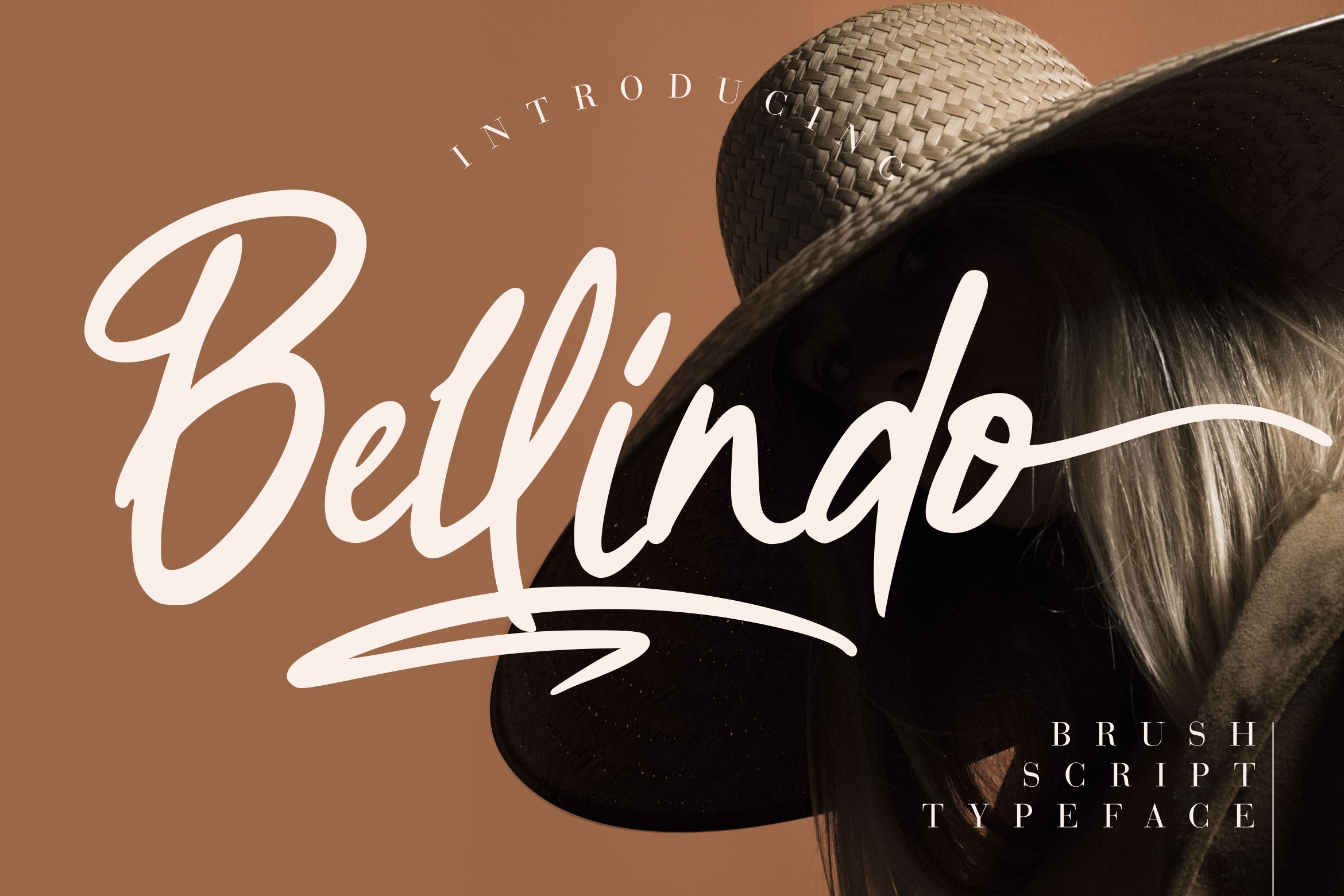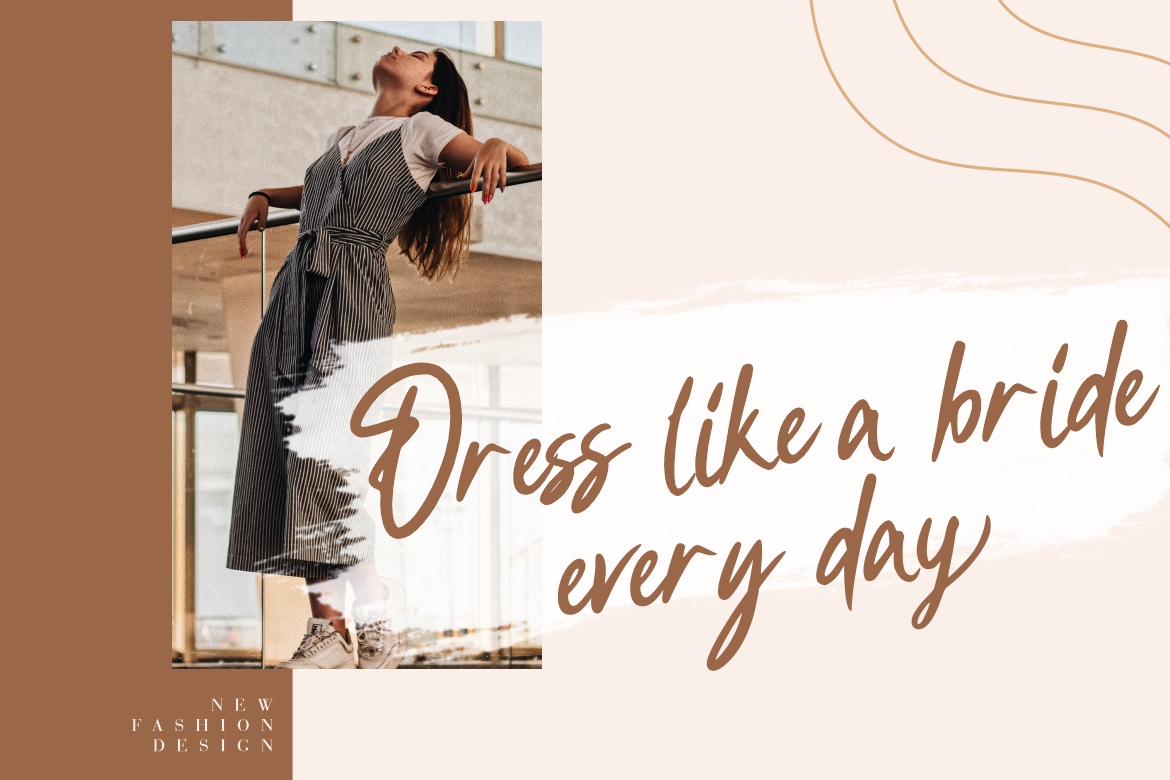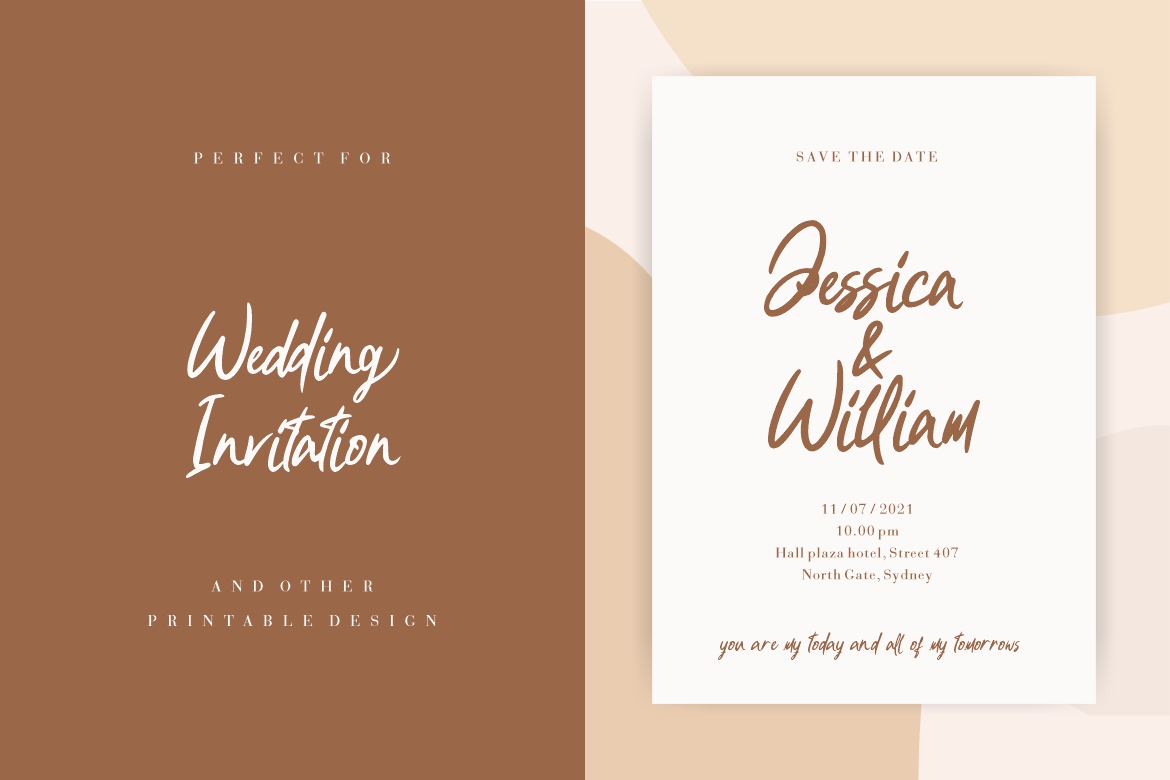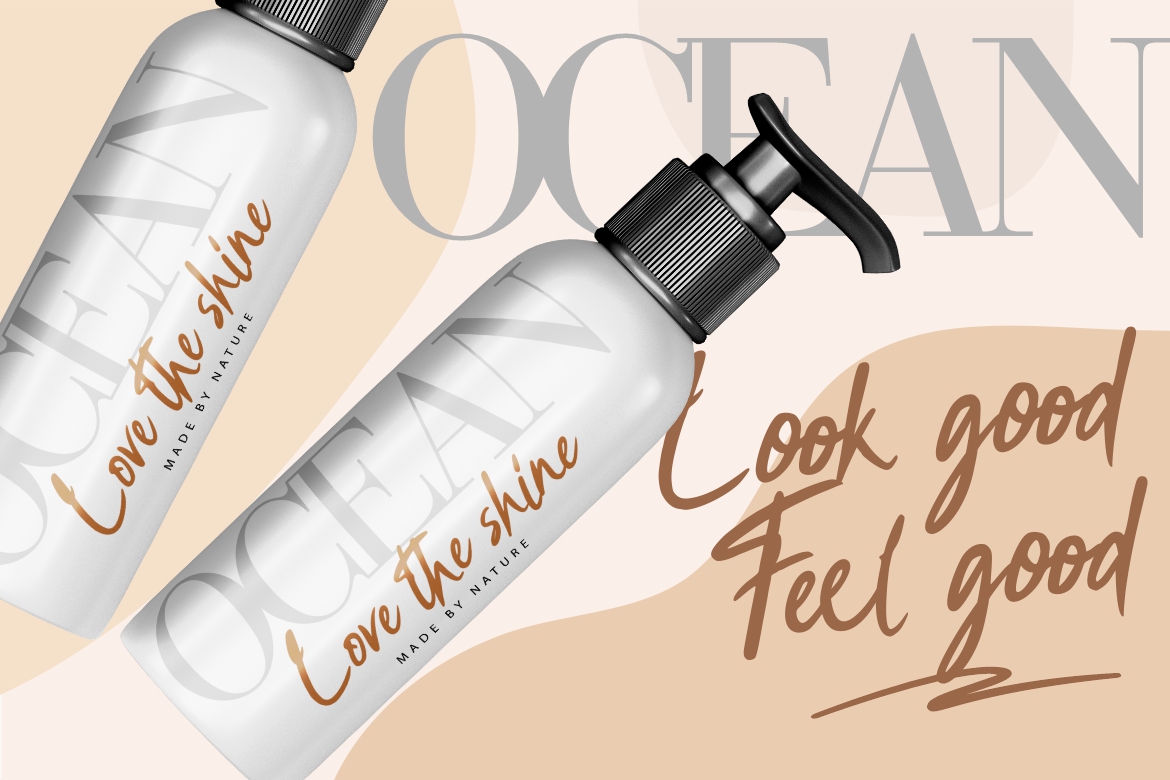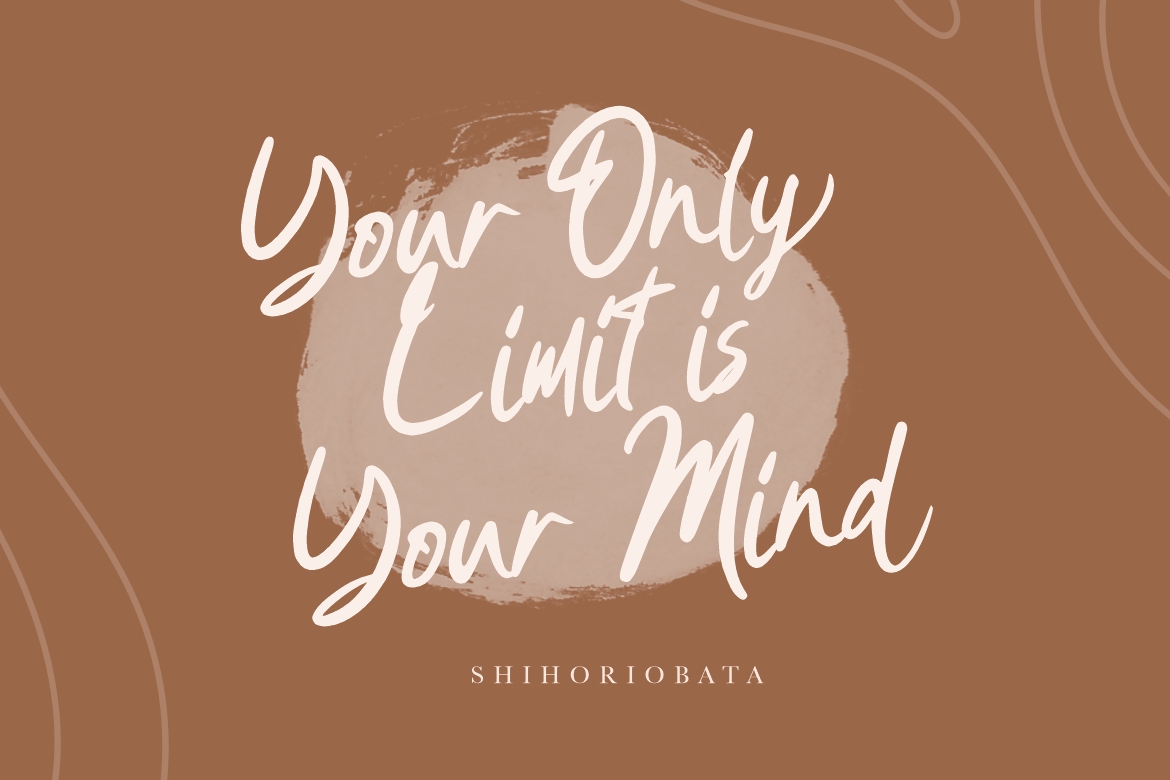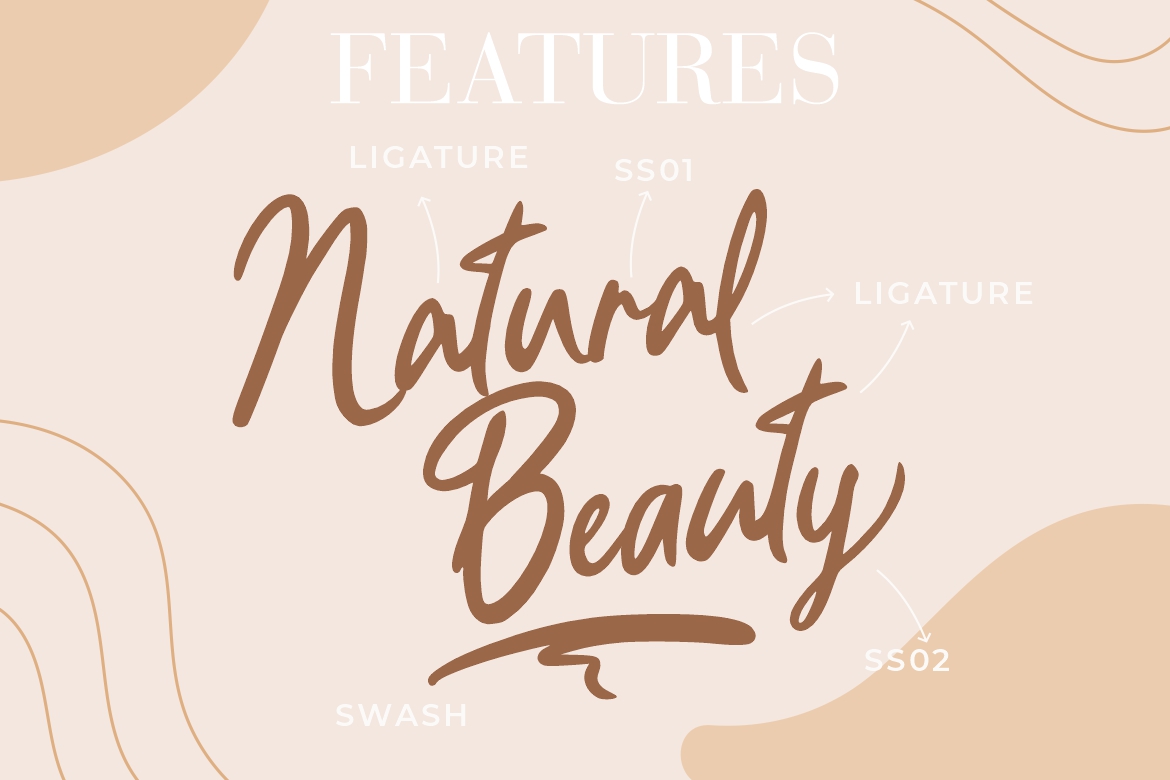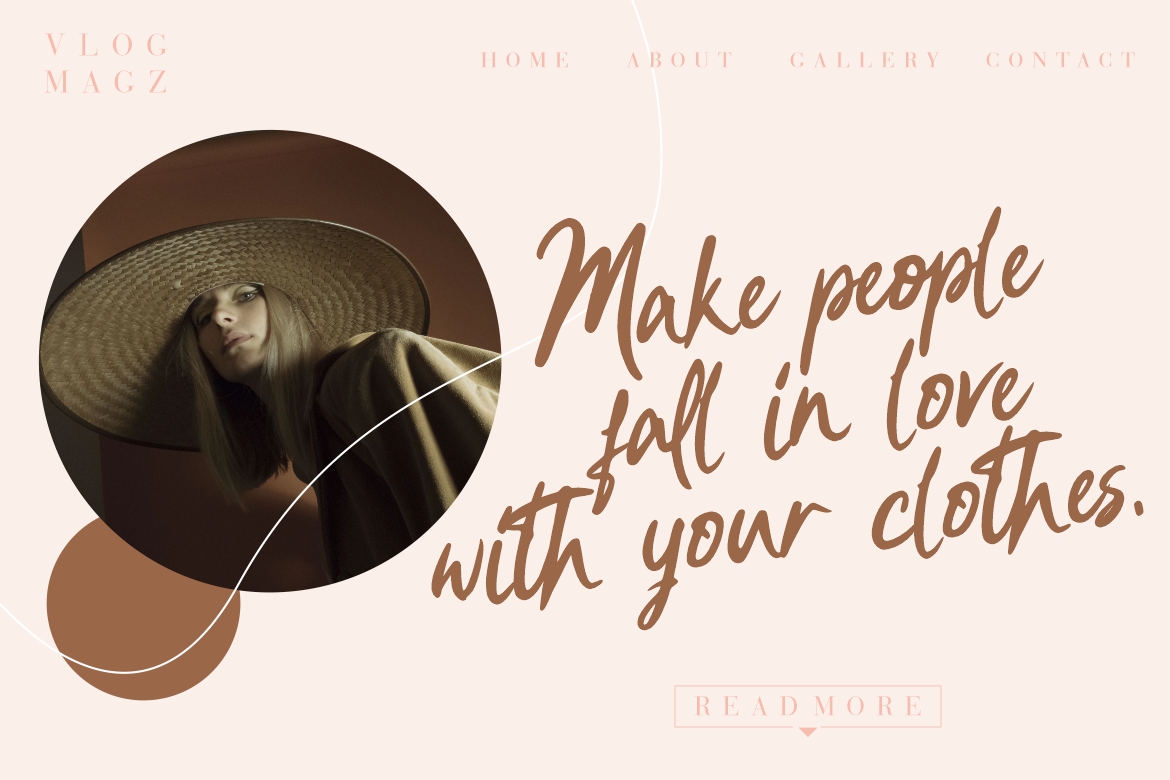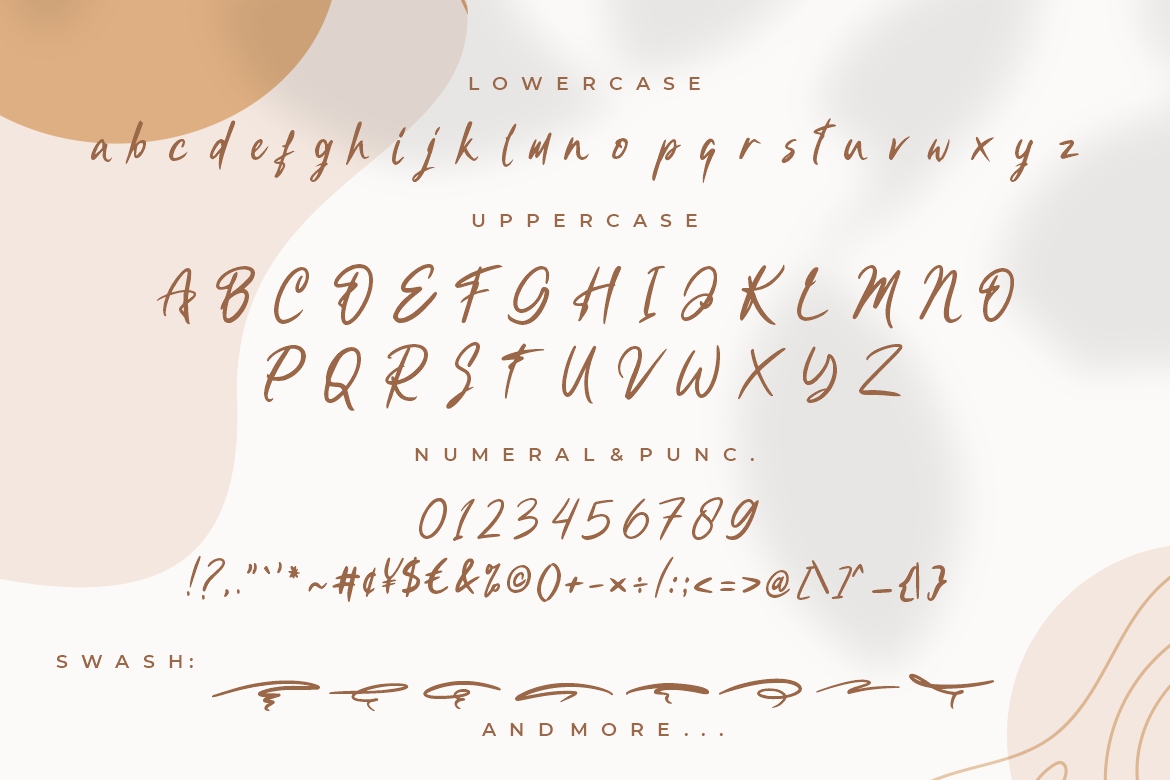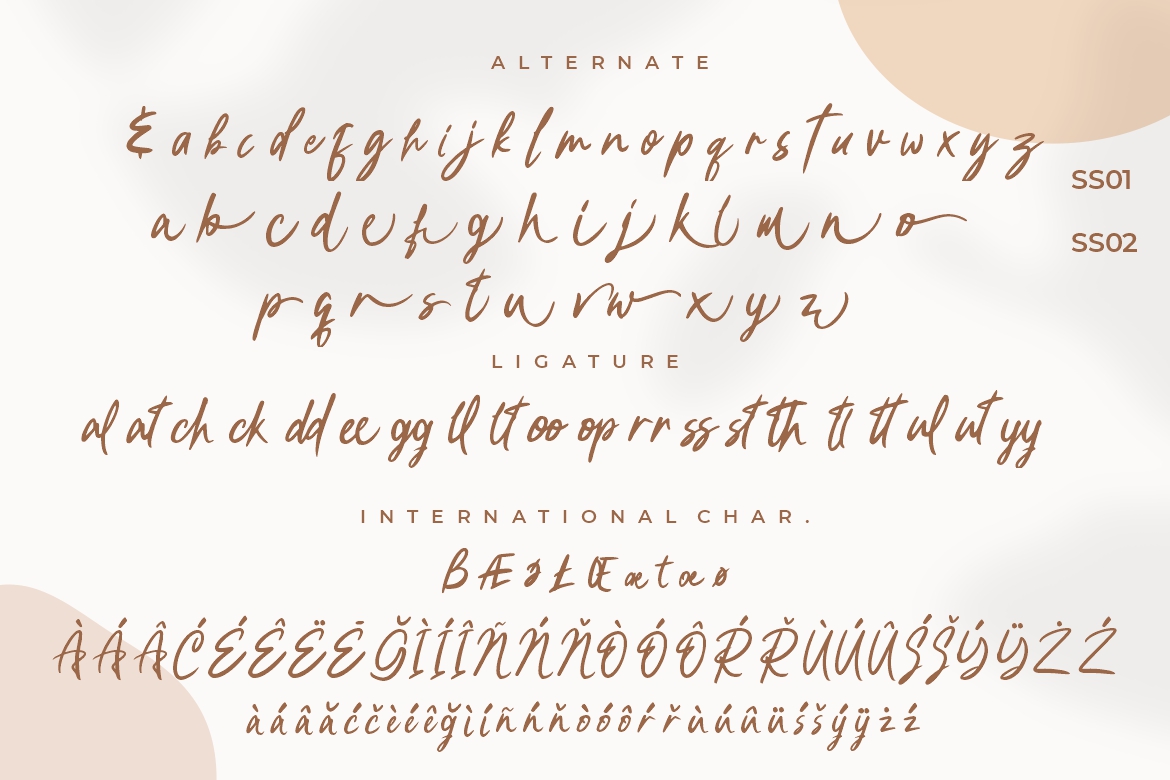
Bellindo Brush Instagram Font
Introducing Bellindo Brush Script – A natural scratch brush font that looks elegant and classy. This font will looks awesome and amazing in many way to your latest project. The font is perfect for for movie title, logo, blogging, brand identity, book title, social media, branding, wedding invites, cards or simply use it in your next design project and suitable to use for many occasion.